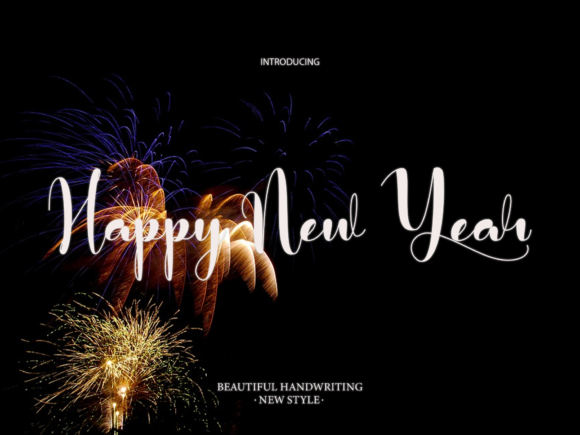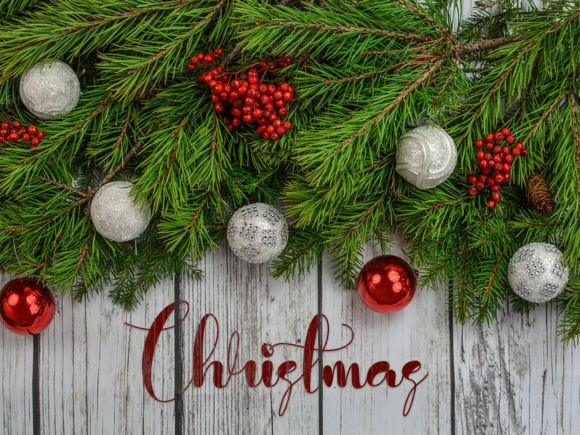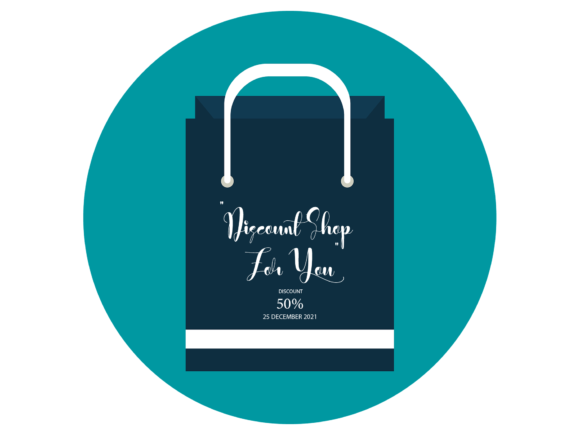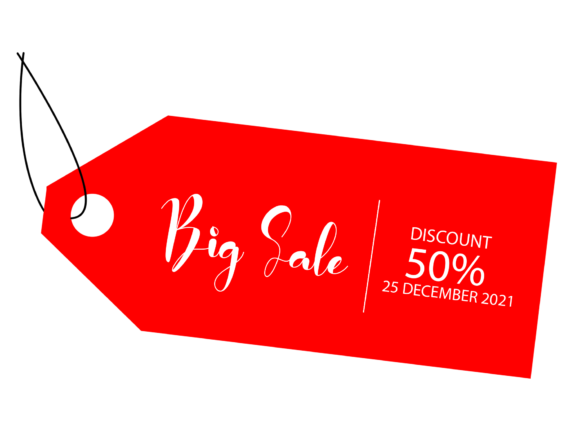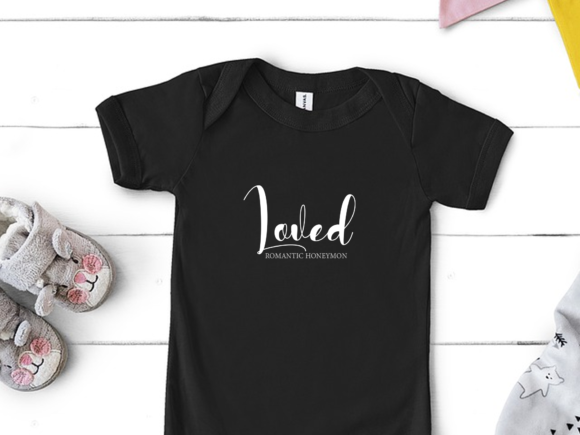
Ring in the New Year with Style: Introducing Happy New Year Font
As the clock strikes midnight on New Year’s Eve, we’re filled with excitement and anticipation for the year ahead. But what if you could capture that same feeling in your design projects? For designers, finding the perfect font can be the key to making a lasting impression. That’s where the Happy New Year Font comes in – a chic, trendy script font that’s sure to elevate any project.
This stylish font is more than just a pretty face – it’s packed with features that make it a valuable asset for designers. With its stylish alternates and ligatures, you can add a touch of sophistication to any design. Whether you’re working on a branding project, creating a social media campaign, or designing a special event invitation, the Happy New Year Font is the perfect match.
Key Features of “Happy New Year Font”
- Unique Characteristics: The font features intricate, swirling patterns and festive designs, perfect for New Year’s Eve celebrations and other holiday-themed projects
- Kerning and Ligatures: Includes advanced kerning and ligature tables for smooth text rendering and improved readability
Happy New Year Font Review
I recently had the chance to work with the Happy New Year Font, and I have to say, it’s a mixed bag. ✨ On the positive side, the font is incredibly festive and perfect for any New Year’s-themed project. It’s bold, eye-catching, and immediately conveys the celebratory feel you’re going for. The design is also quite versatile, allowing you to customize it to fit your specific needs.
- ✨ The font is super festive and perfect for New Year’s projects.
- ✨ It’s bold and eye-catching, making it great for grabbing attention.
- ✨ The design is versatile and easy to customize.
However, there are some limitations that might hold you back. ⚠️ The font only comes in one style, which might limit your creative freedom. Additionally, it’s not ideal for long blocks of text, as the boldness can make it difficult to read. Finally, the font is only available in a limited range of languages, which might be a problem if you need to use it for international projects.
- ⚠️ Only one style available, limiting creative freedom.
- ⚠️ Not ideal for long blocks of text.
- ⚠️ Limited language support.
Overall, I think the Happy New Year Font is a fun and creative solution for specific projects. While it has its limitations, it’s a great choice when you need a bold, eye-catching font to grab attention.
Tips for Getting the Most Out of Happy New Year Font
To get the most out of Happy New Year Font, use it for designs that require a festive and celebratory feel, such as:
- New Year’s Eve invitations and party decorations.
- Year-end reports and newsletters.